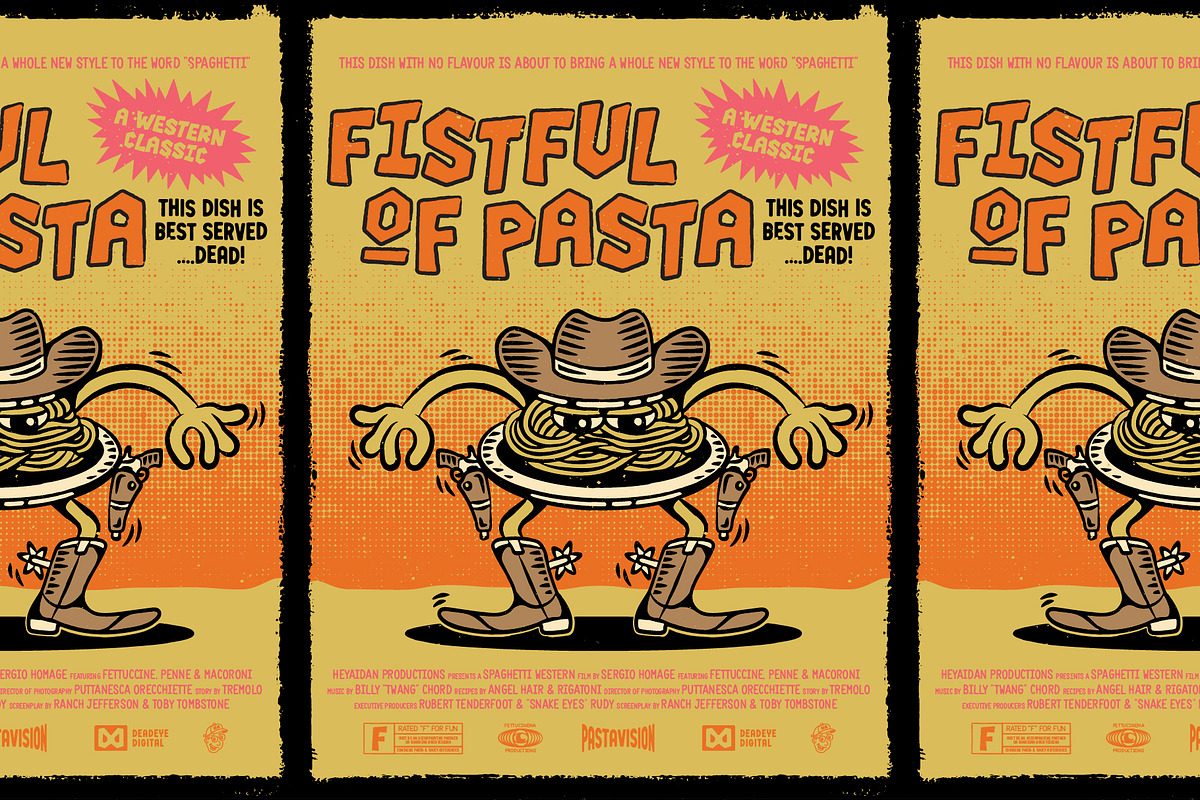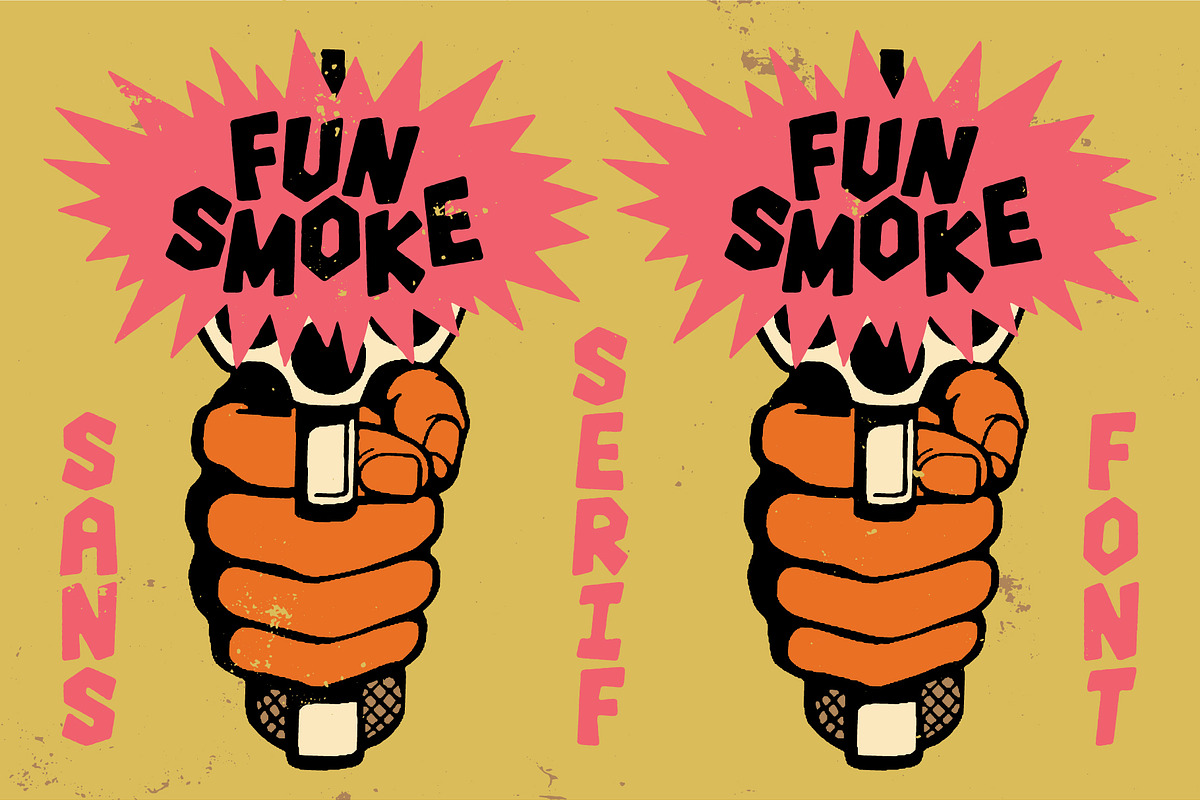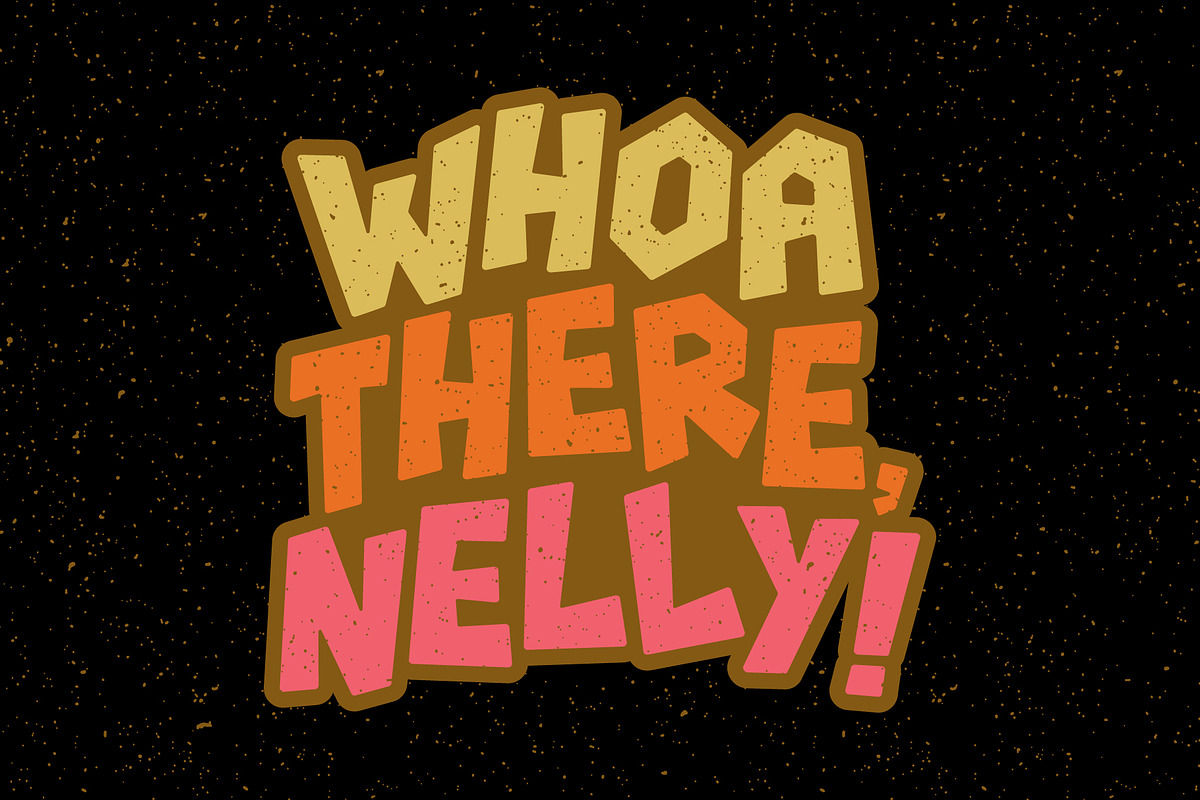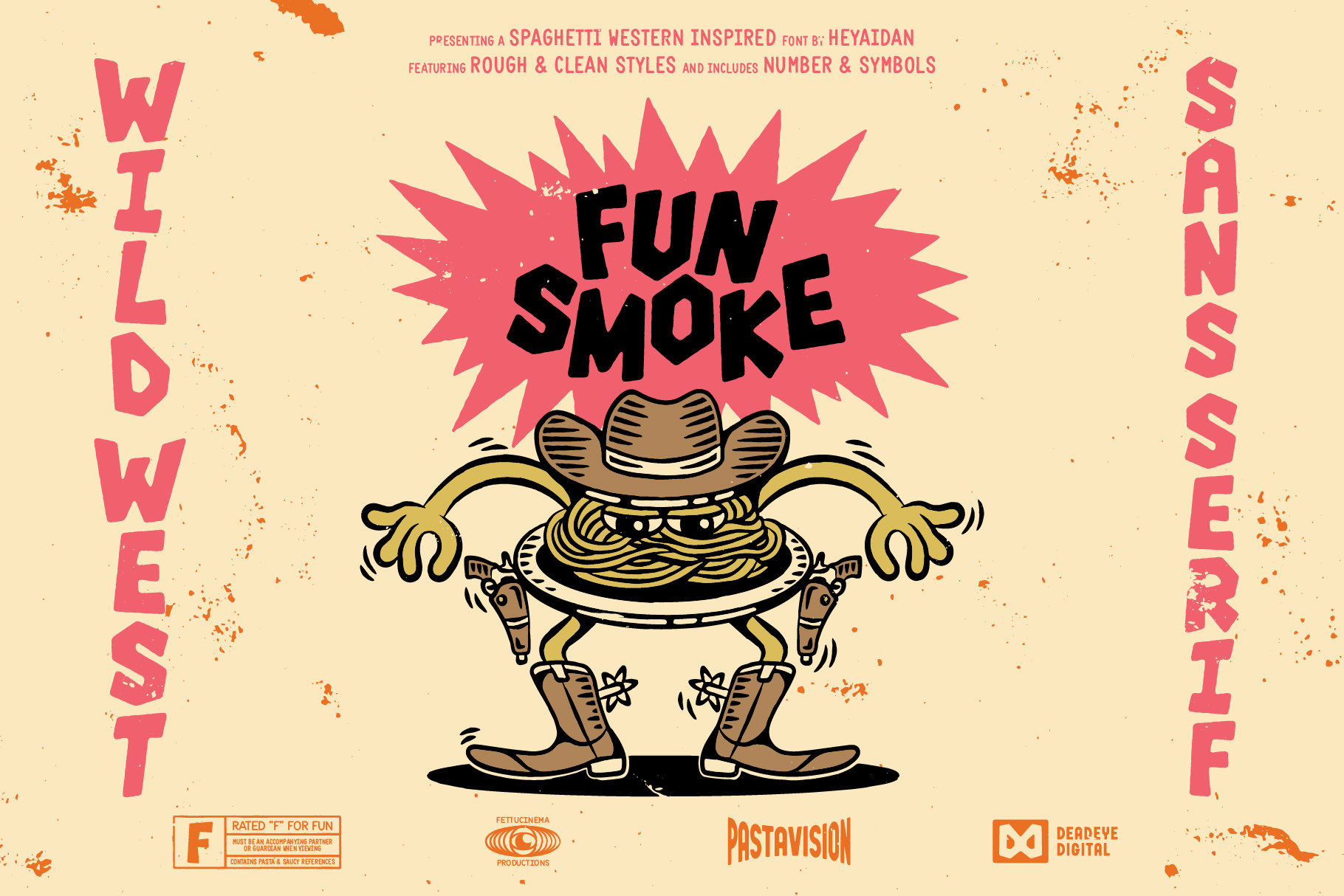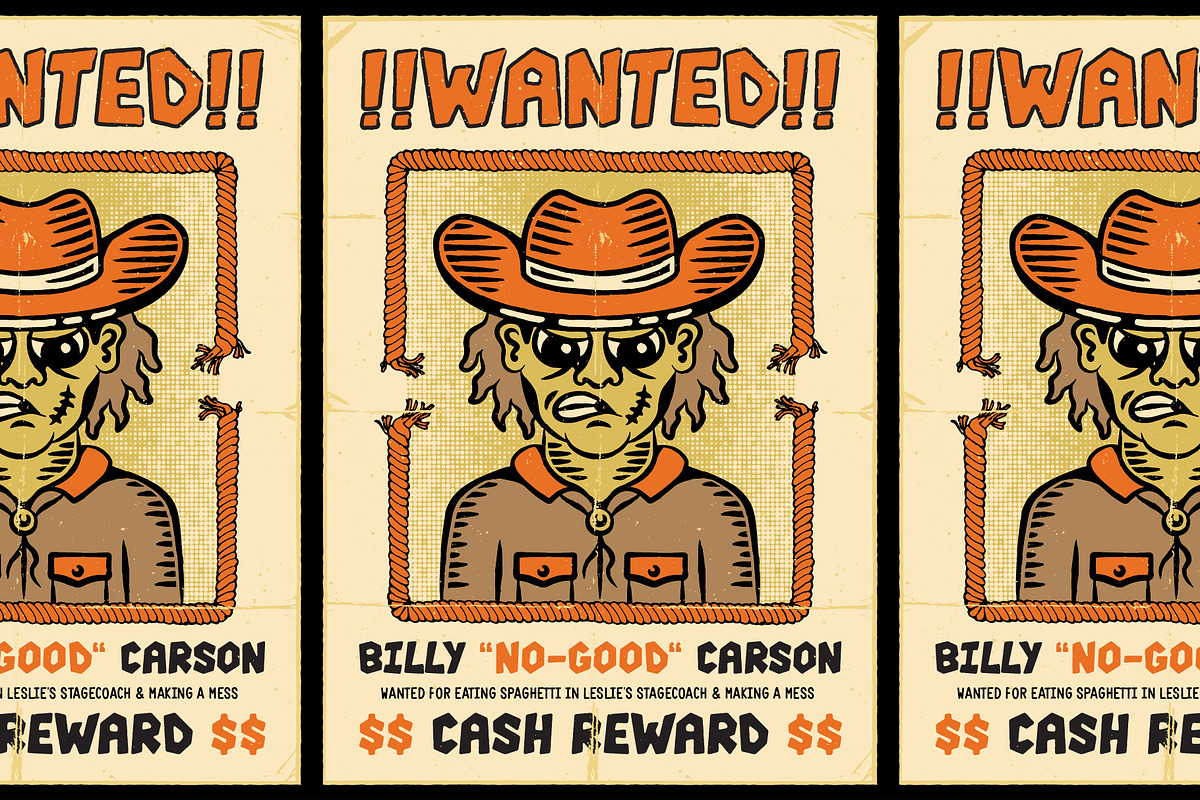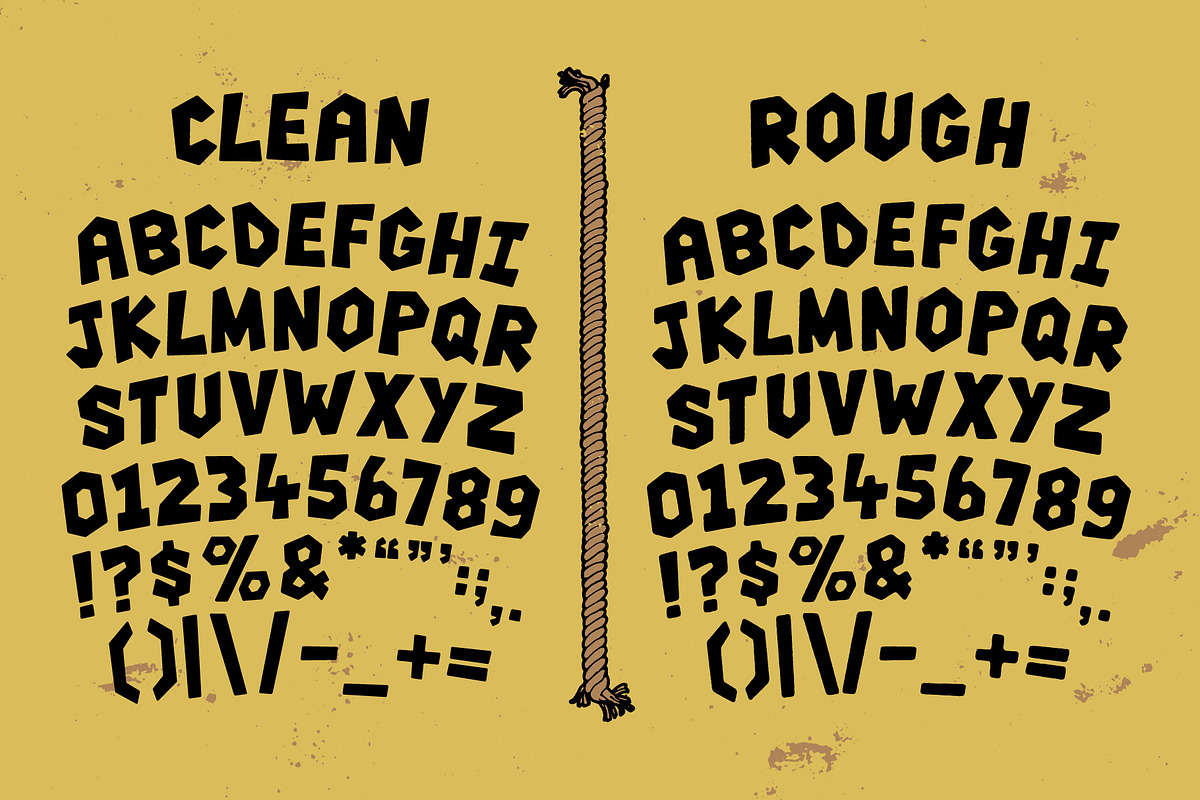
Fun Smoke | Wild West Kinda Font
Howdy Partner! Introducing Fun Smoke. A Font that I modified from an old, western book title I stumbled across in a Thrift Shop.
Getting tumbleweeds in your designs? Well it's time to crack that whip and grab yer'self a rootin' tootin' kinda font. All fun and no fuss, you'll be using this for your next design shootout or just for a good ol' fashion saloon graphic.
FunSmoke is an All Caps display font featuring two styles to work with; Rough & Clean. Rough is blobby with textured edges, whereas Clean is sharp and more geometric.
- Letters in all caps
- Most Punctuation
- Most common symbols
- Rootin' Tootin' good time!